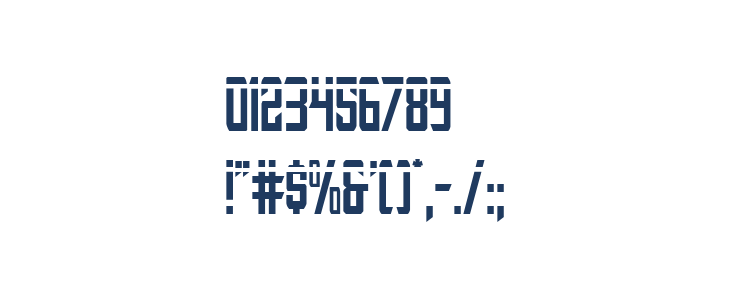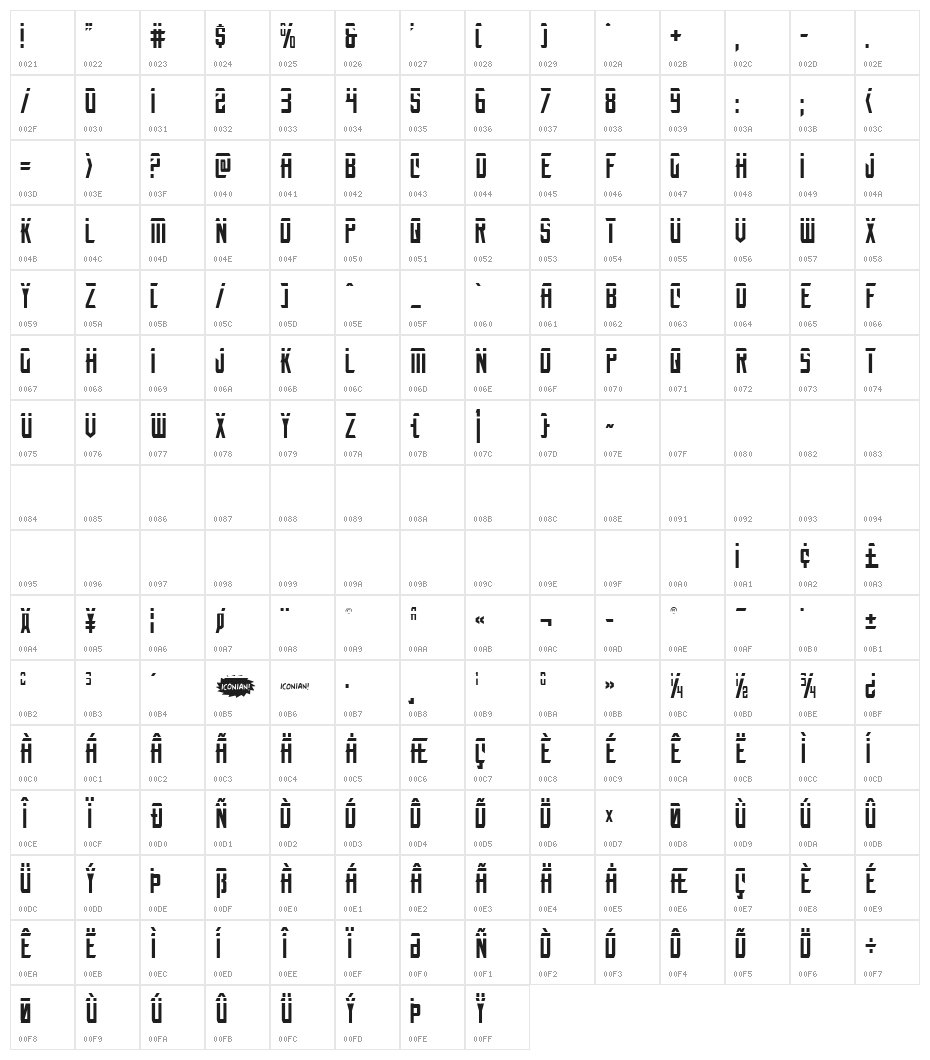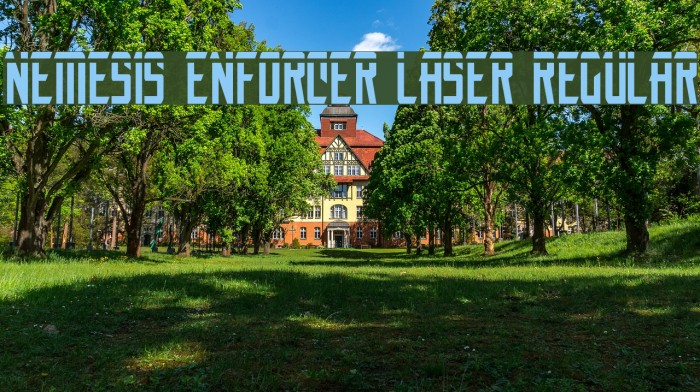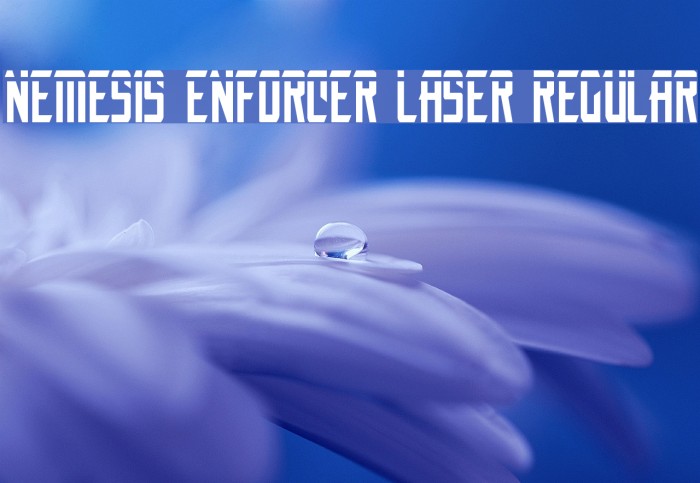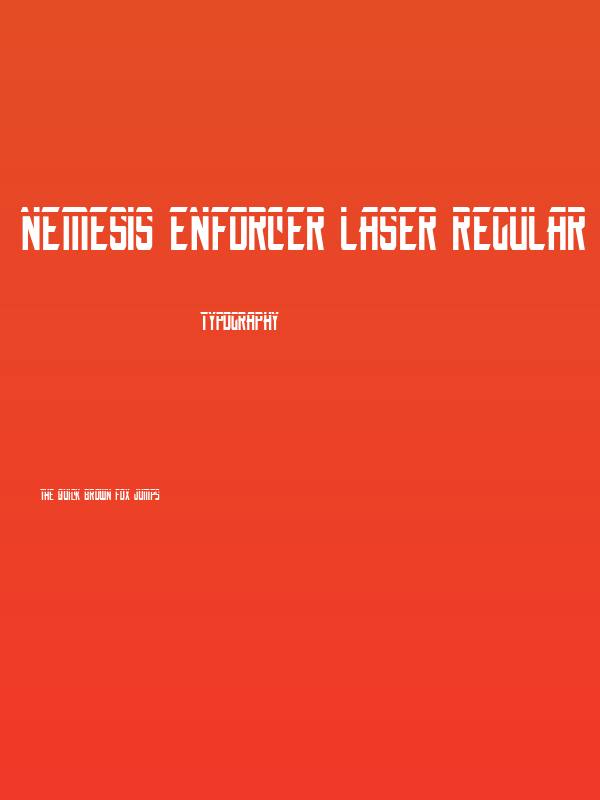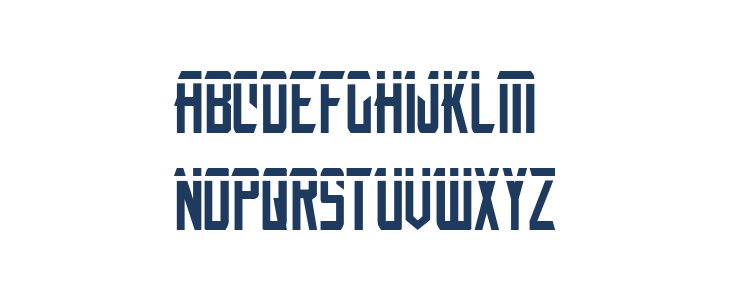
Nemesis Enforcer Laser Regular Font
Nemesis Enforcer Laser Regular Description
This font features a bold, futuristic design with sharp angles and geometric shapes. The uppercase letters are distinct with a strong presence, characterized by their blocky and angular appearance. The lowercase letters maintain the same geometric style, ensuring consistency throughout. The numbers are equally bold and angular, making them stand out. Special characters are designed to match the overall aesthetic, providing a cohesive look. This font is ideal for projects that require a modern, tech-inspired feel.
Proposed ProjectsIdeal for sci-fi movie posters, tech branding, video game titles, and futuristic-themed designs.